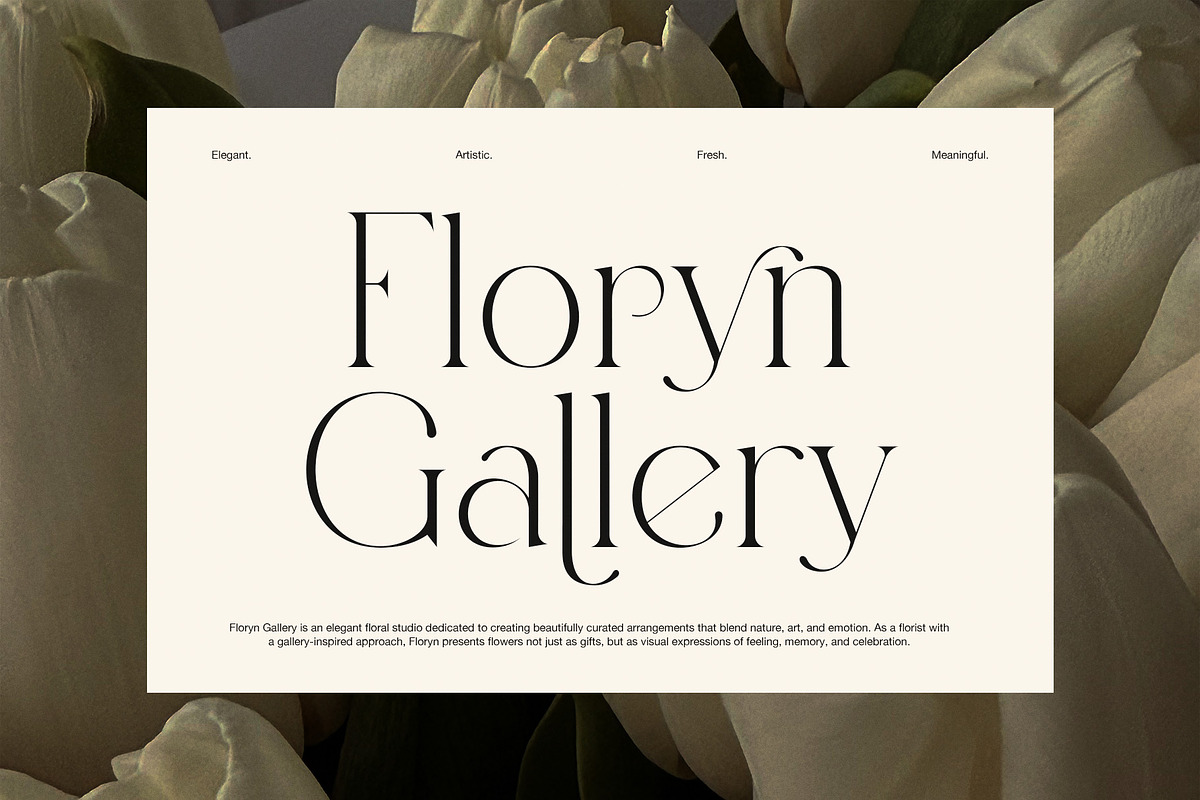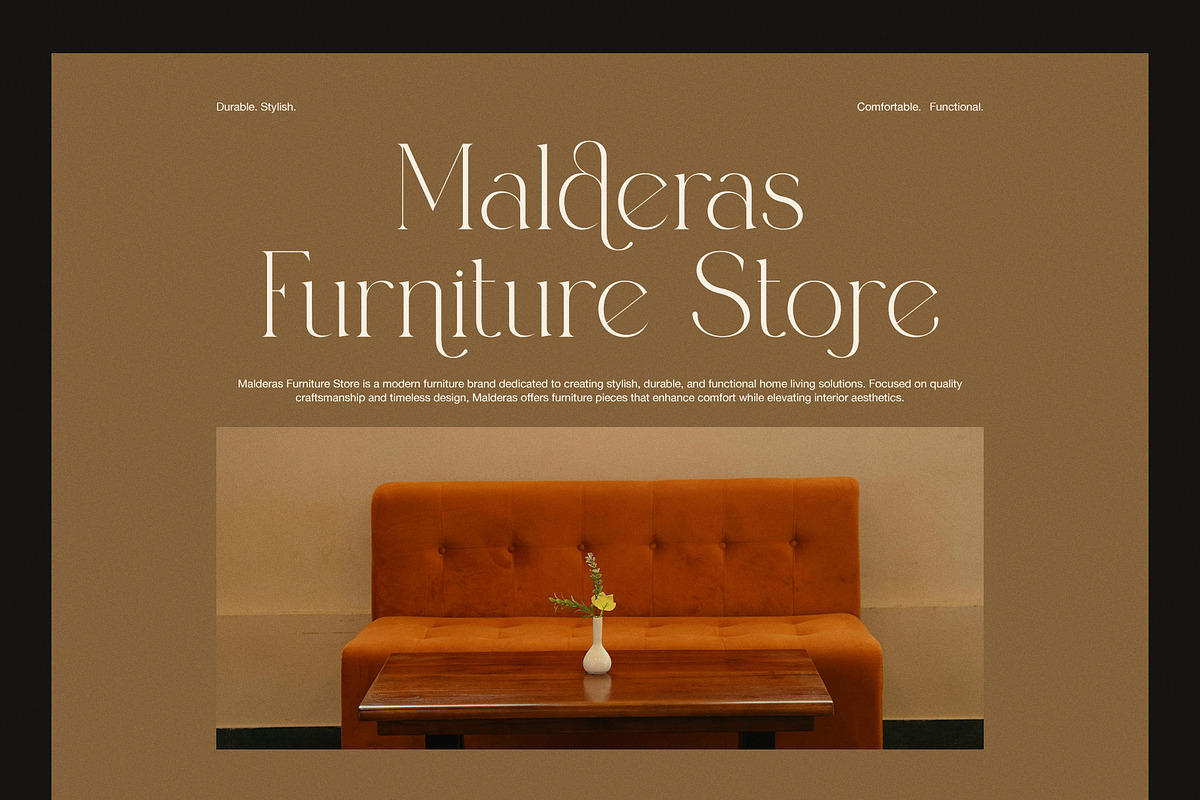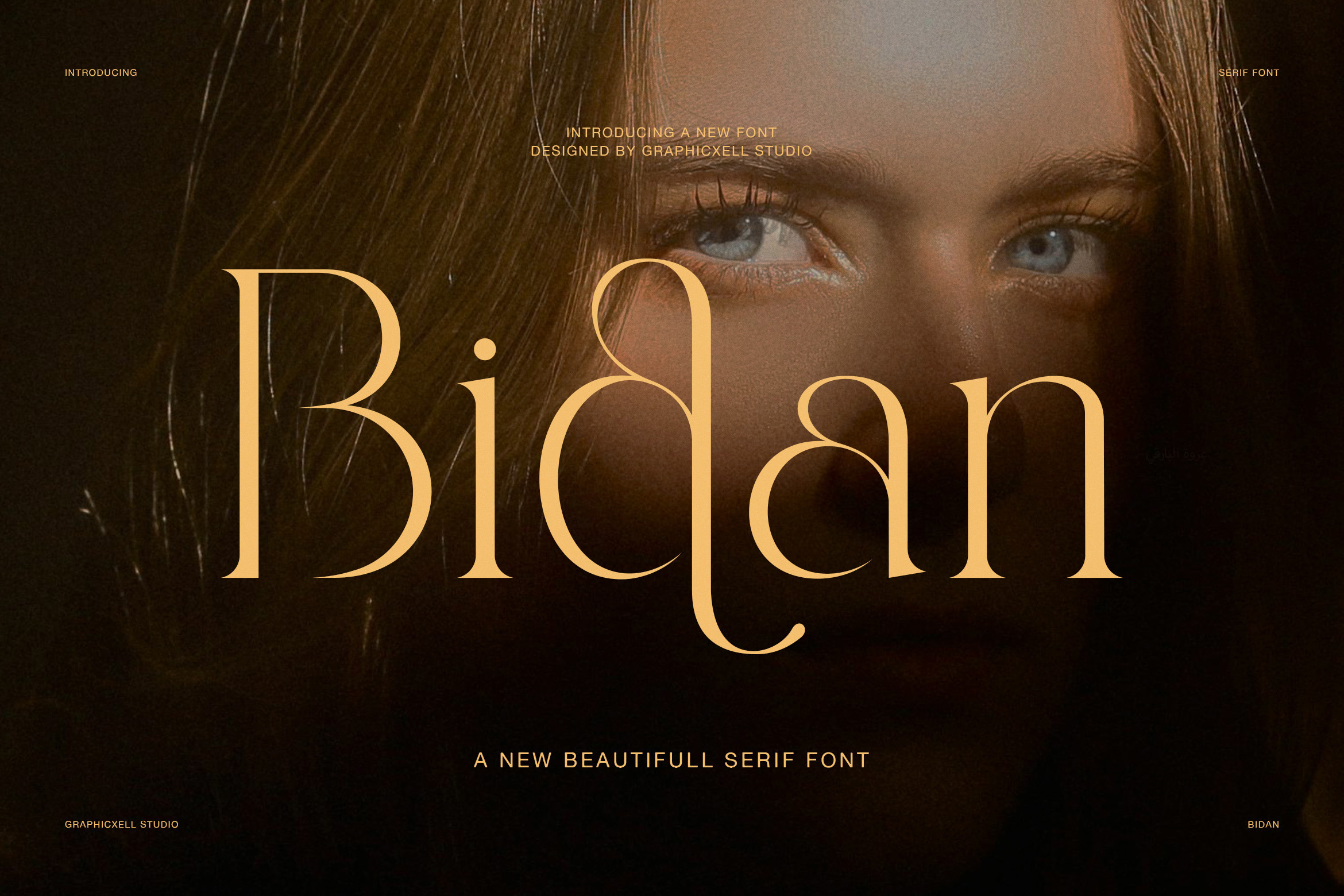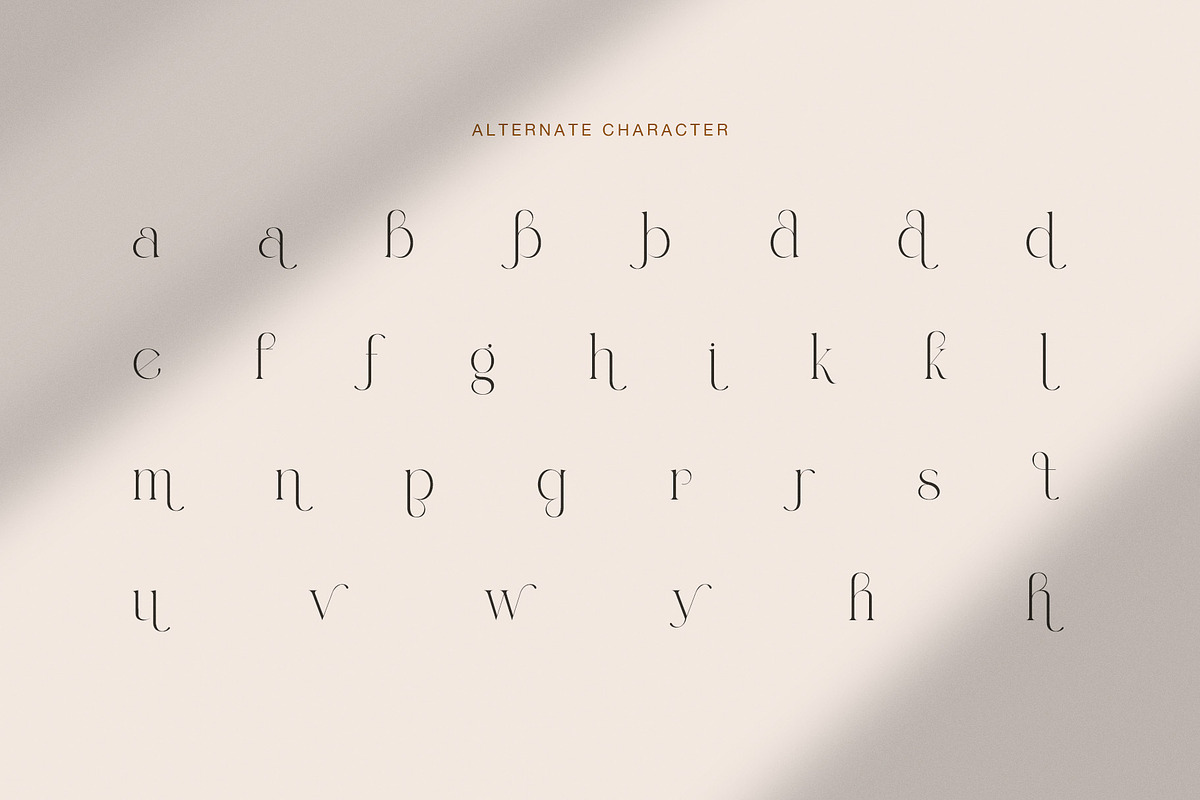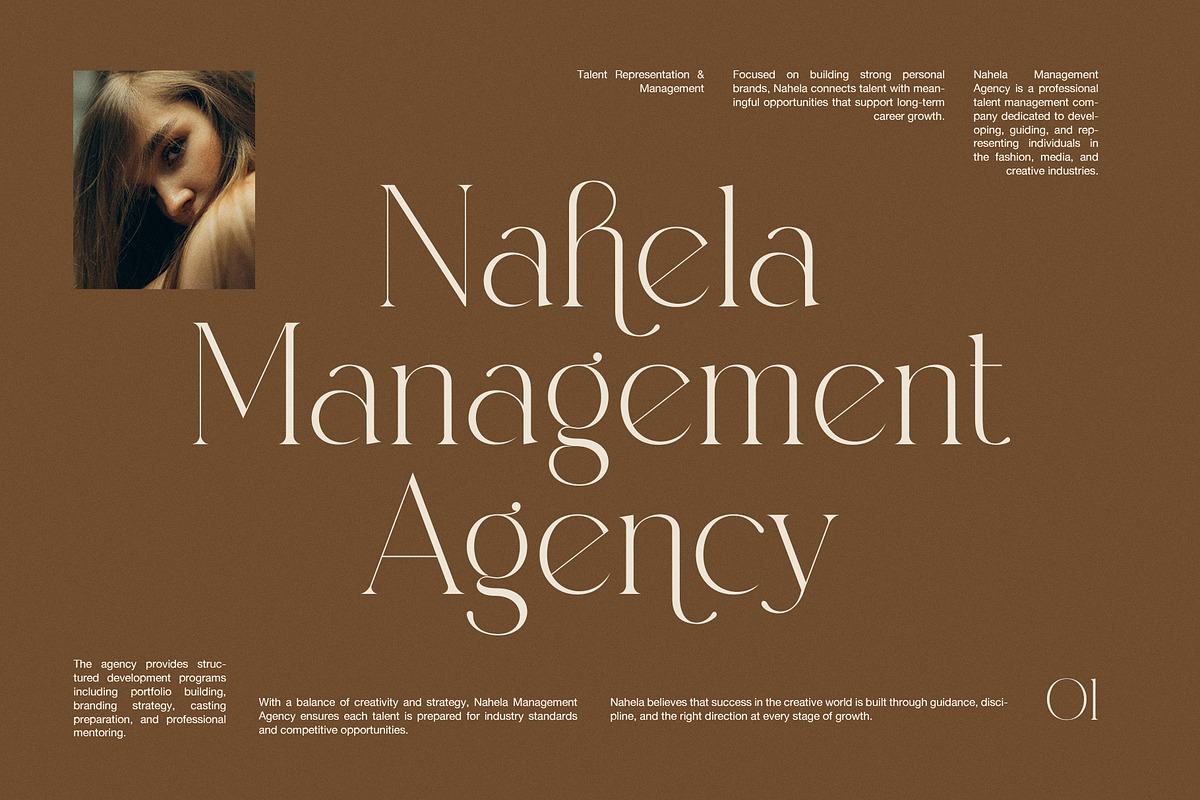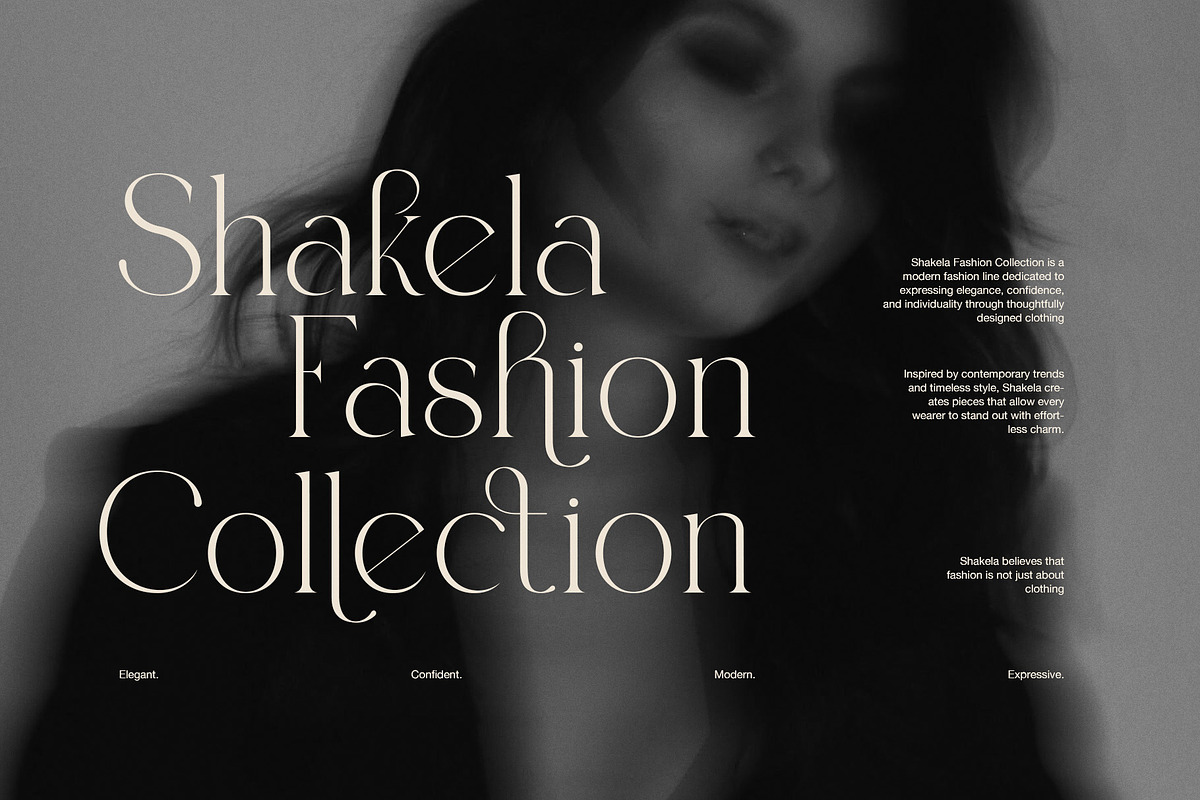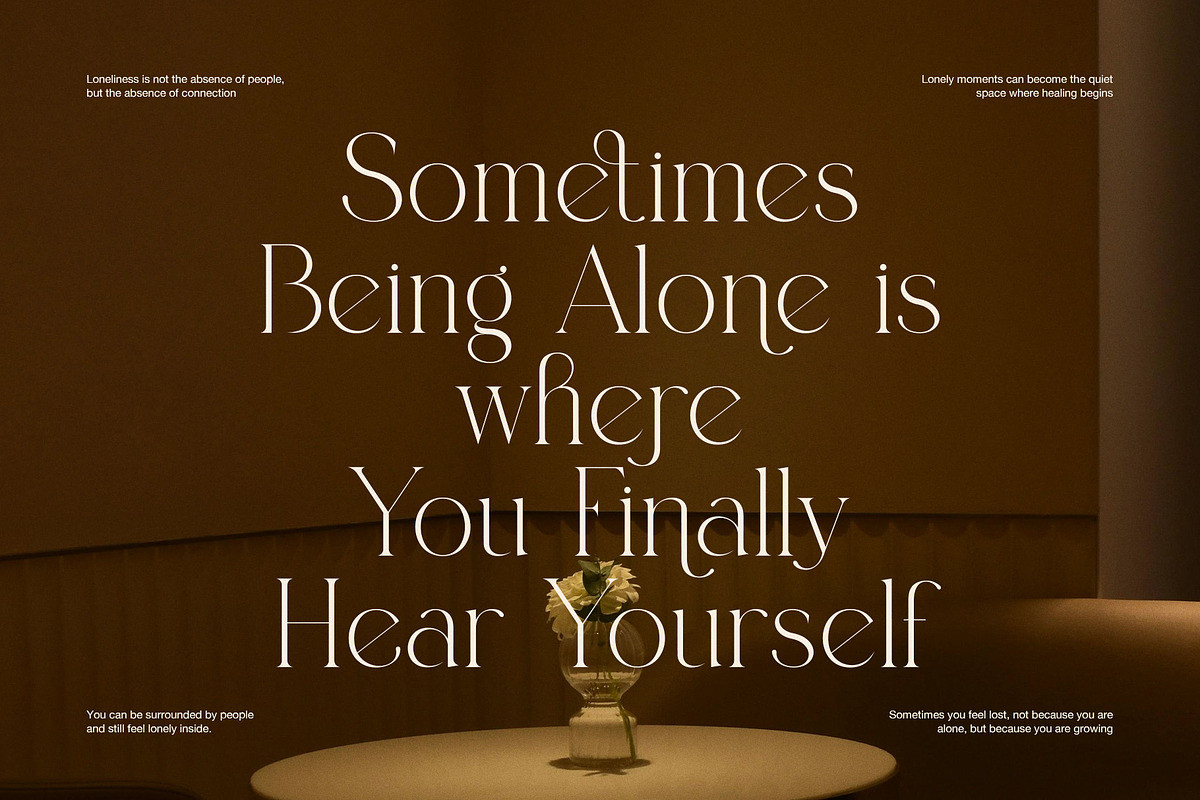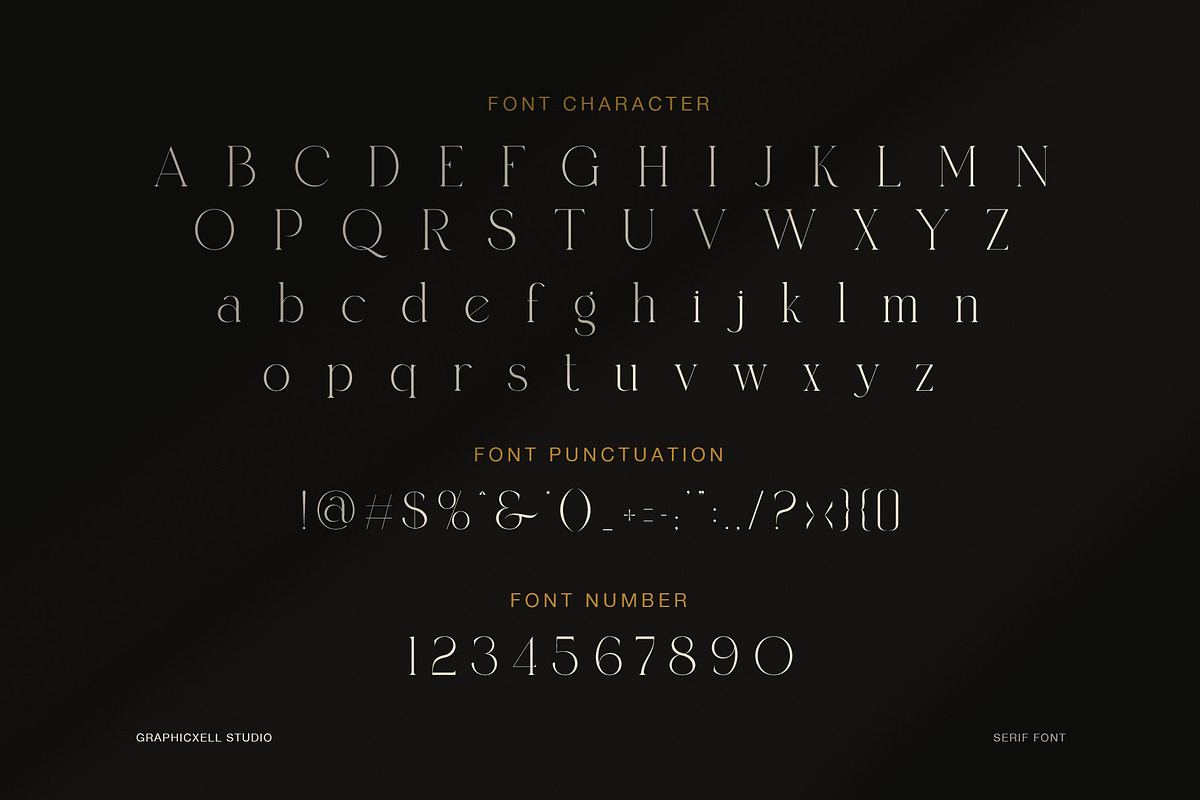
Bidan Elegant Luxury Serif Font
Bidan Elegant Luxury Serif Font is a refined typeface designed for modern luxury branding, editorial layouts, and fashion-focused visuals. It combines soft elegance with strong contrast, so it creates a premium and timeless look in every design. As a result, it works well for both digital and print projects.
Moreover, Bidan has smooth curves and clean strokes that bring balance and harmony to each letter. Because of this, the font feels artistic yet still easy to read. In addition, the letter shapes are carefully designed to give a high-end visual identity.
Furthermore, this serif font is inspired by fashion editorials, luxury magazines, and modern lifestyle branding. Therefore, it helps designers build strong visual stories with minimal effort. At the same time, it keeps a natural and human feel, which makes the text more emotional and engaging.
In addition, Bidan includes stylish alternates and elegant letter details. So, you can create unique typography compositions without losing consistency. As a result, it is perfect for logos, headlines, packaging, and social media branding.
Elegant high-contrast serif style
Fashion-inspired modern design
Smooth curves with luxury feel
Stylish alternates for creative typography
Strong readability in large display use
Perfect for branding and editorial design
Moreover, Bidan adapts easily to many creative needs. For example, it fits beauty brands, fashion labels, wedding invitations, magazines, and premium product packaging. Because of its elegant structure, it always delivers a sophisticated impression.
However, what makes Bidan special is its emotional tone. It does not only look stylish, but it also communicates confidence and calm beauty. Therefore, it helps brands build a strong and memorable identity.
Finally, Bidan pairs well with simple sans-serif fonts. So, designers can create strong visual contrast in layouts. In conclusion, Bidan Elegant Luxury Serif Font is a perfect choice for anyone who wants elegance, clarity, and modern luxury in one typeface.